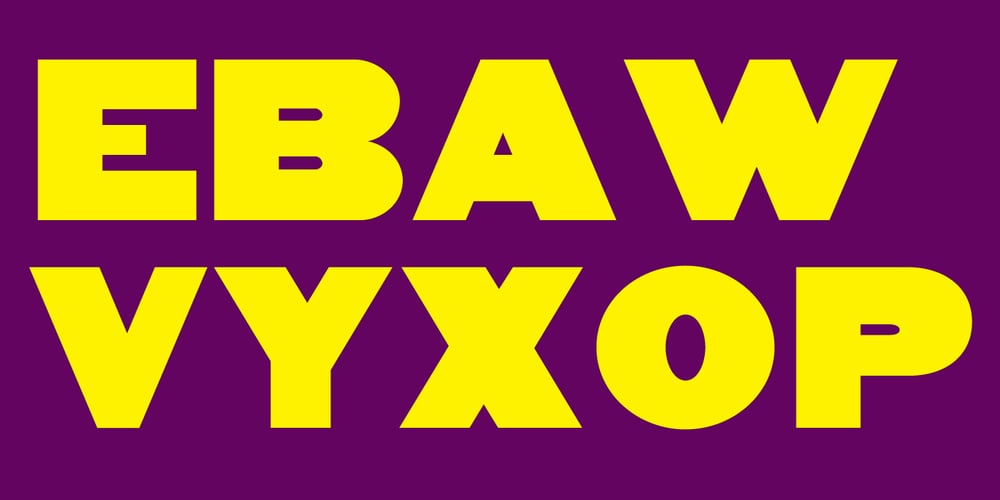
Gothic Nesbitt
Gothic Nesbitt font
Gothic Nesbitt Font Family was designed by Jordan Davies and published by Wooden Type Fonts. Gothic Nesbitt contains 1 styles and family package options. An early gothic heavy sans serif font, largely for display.